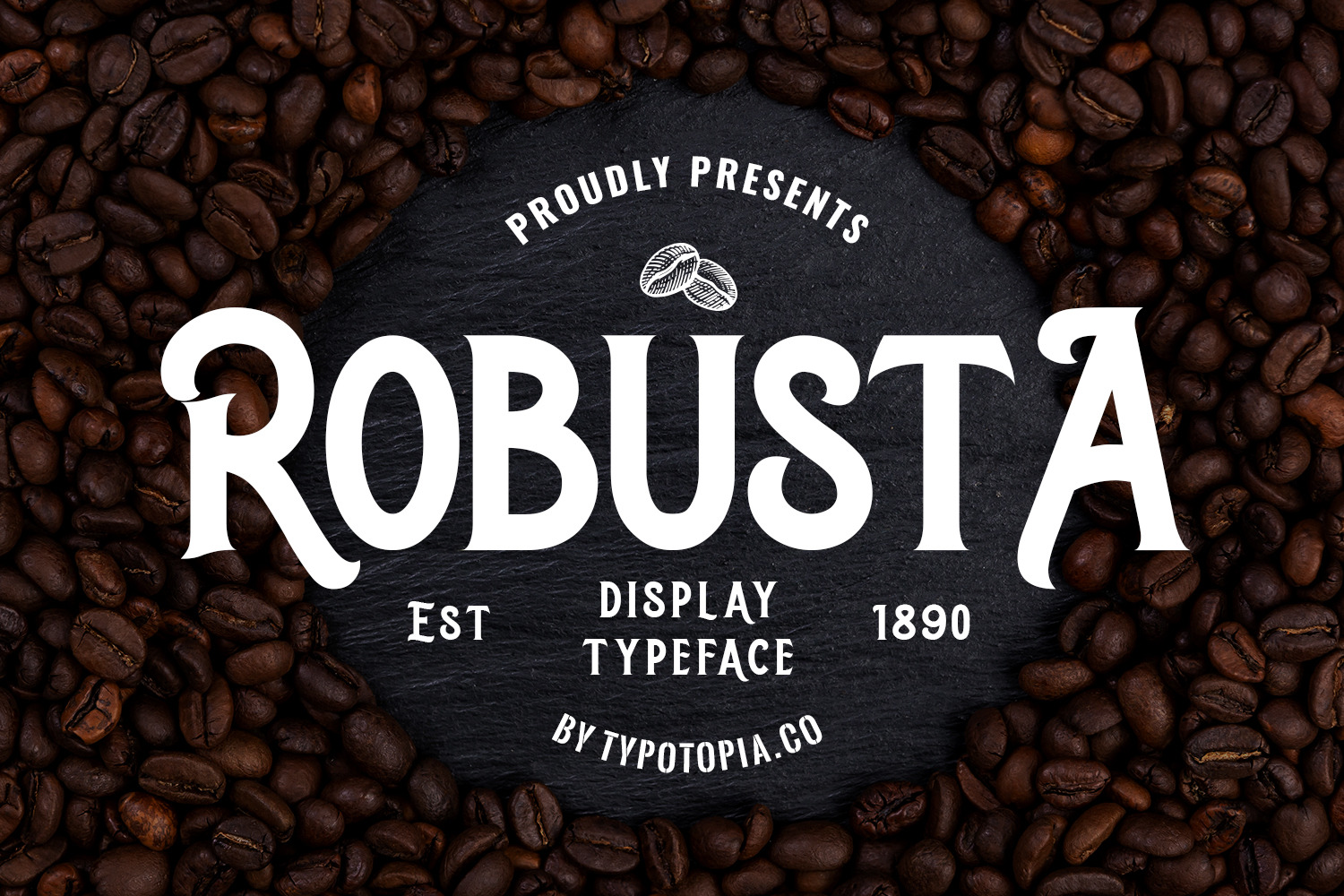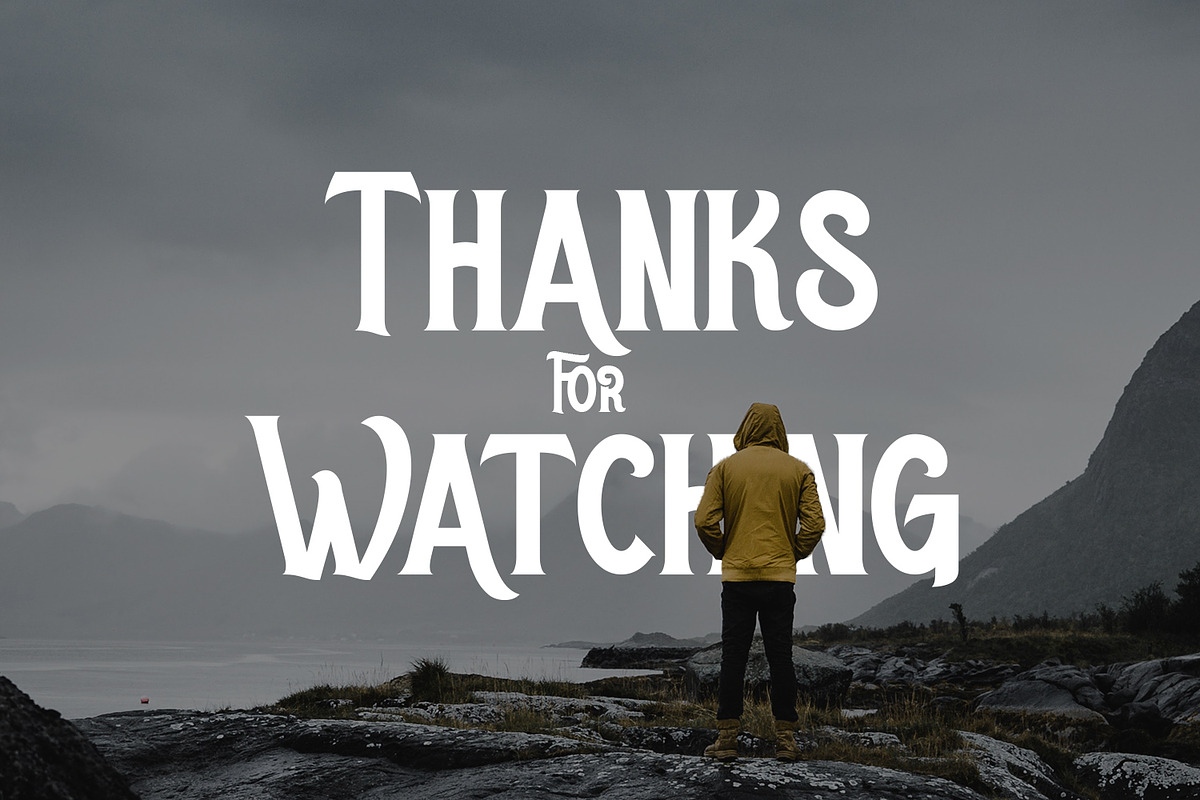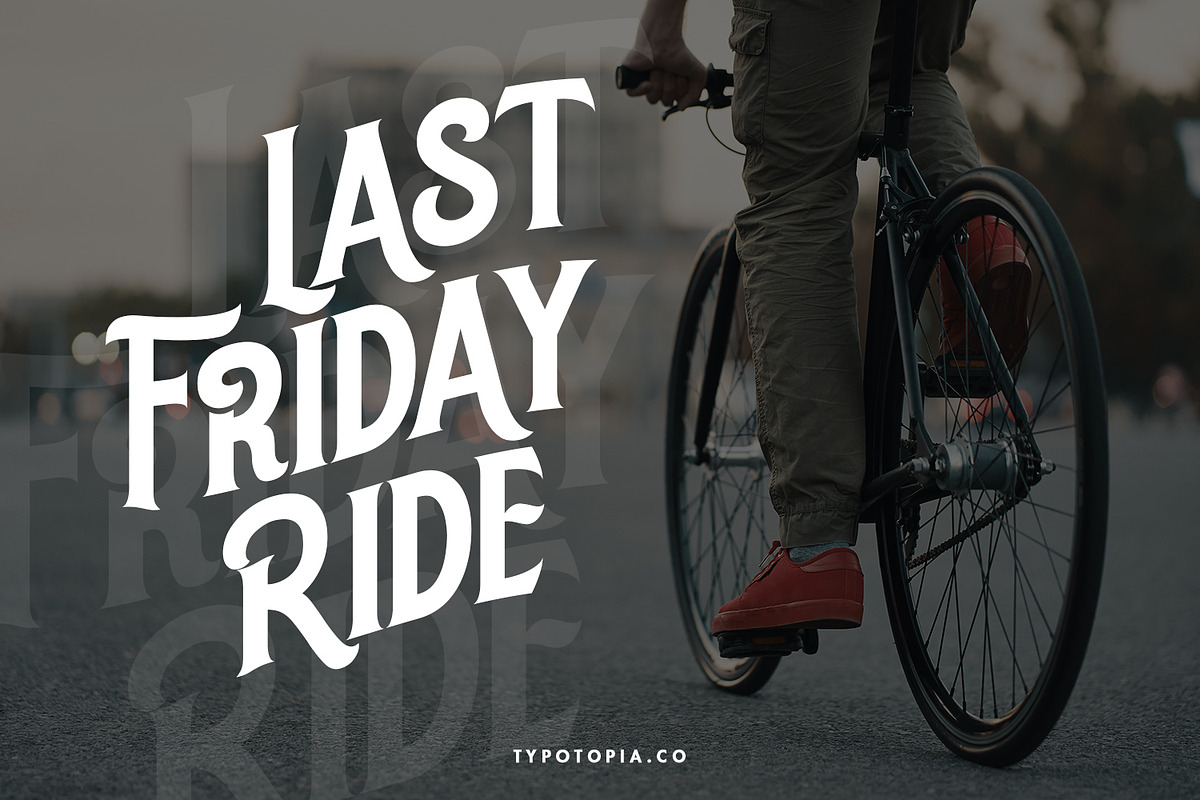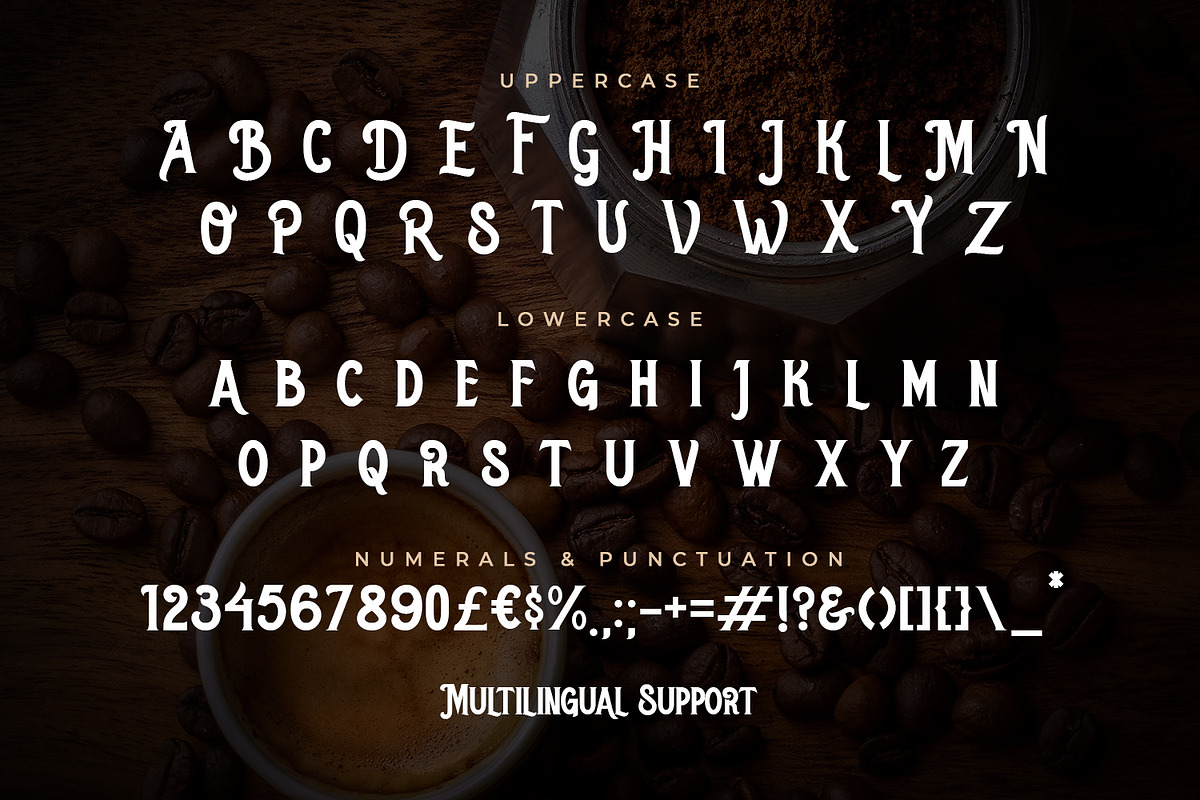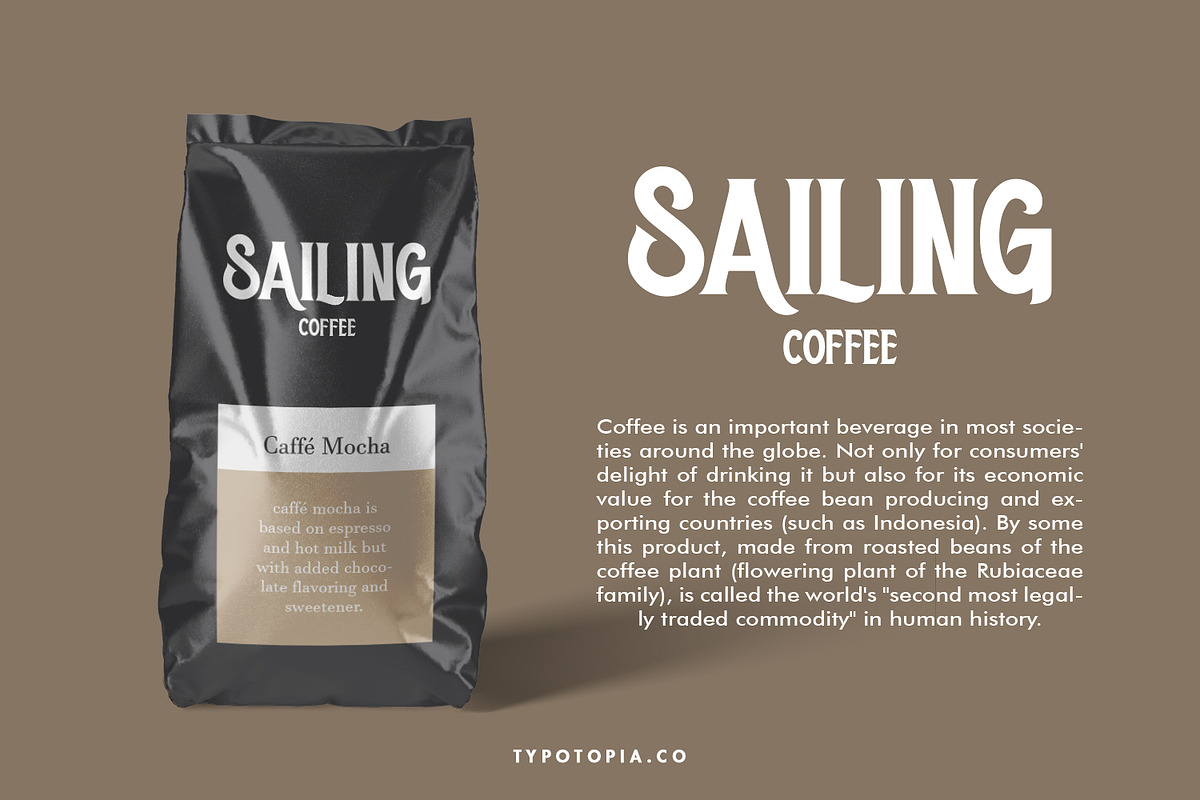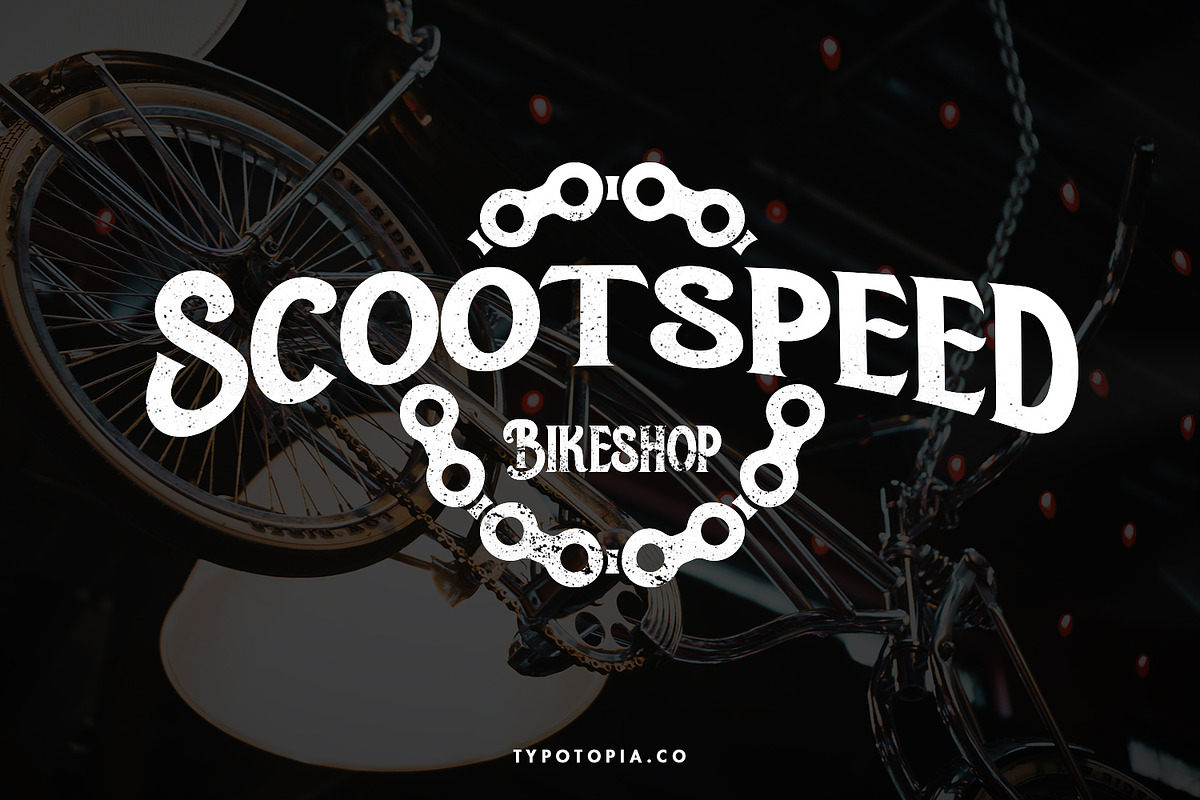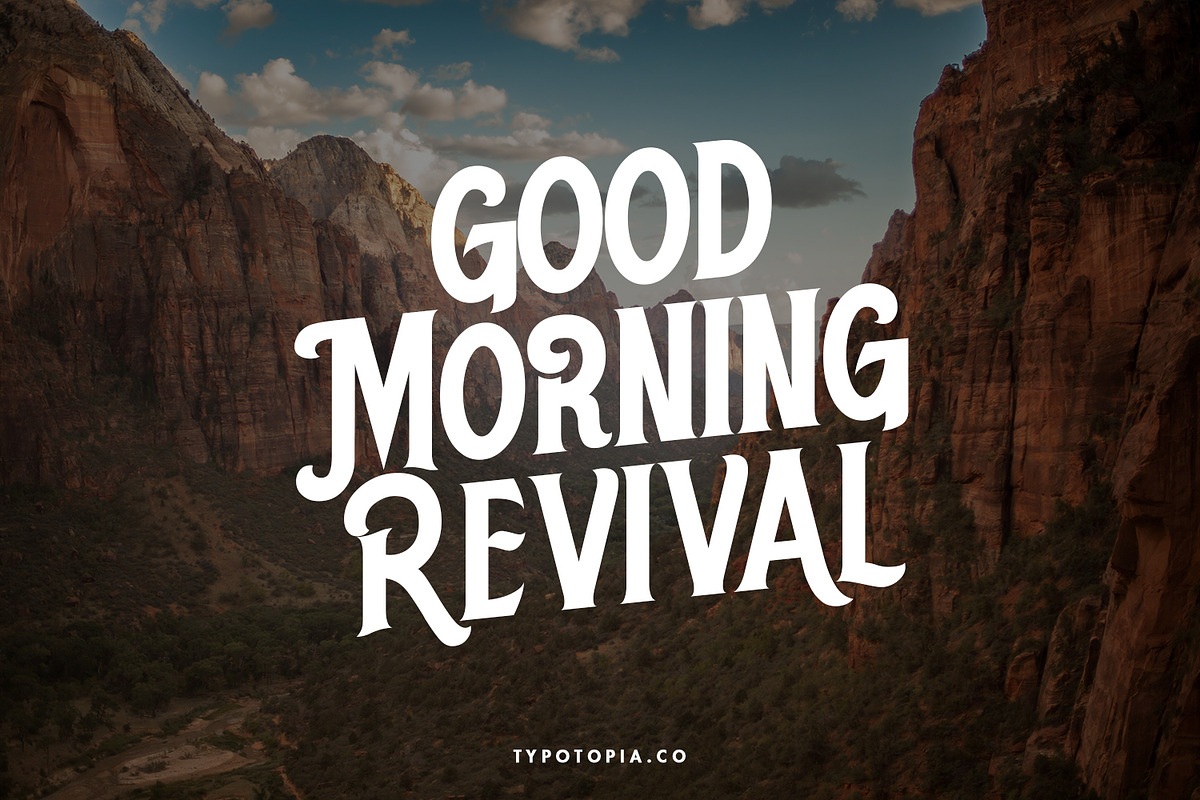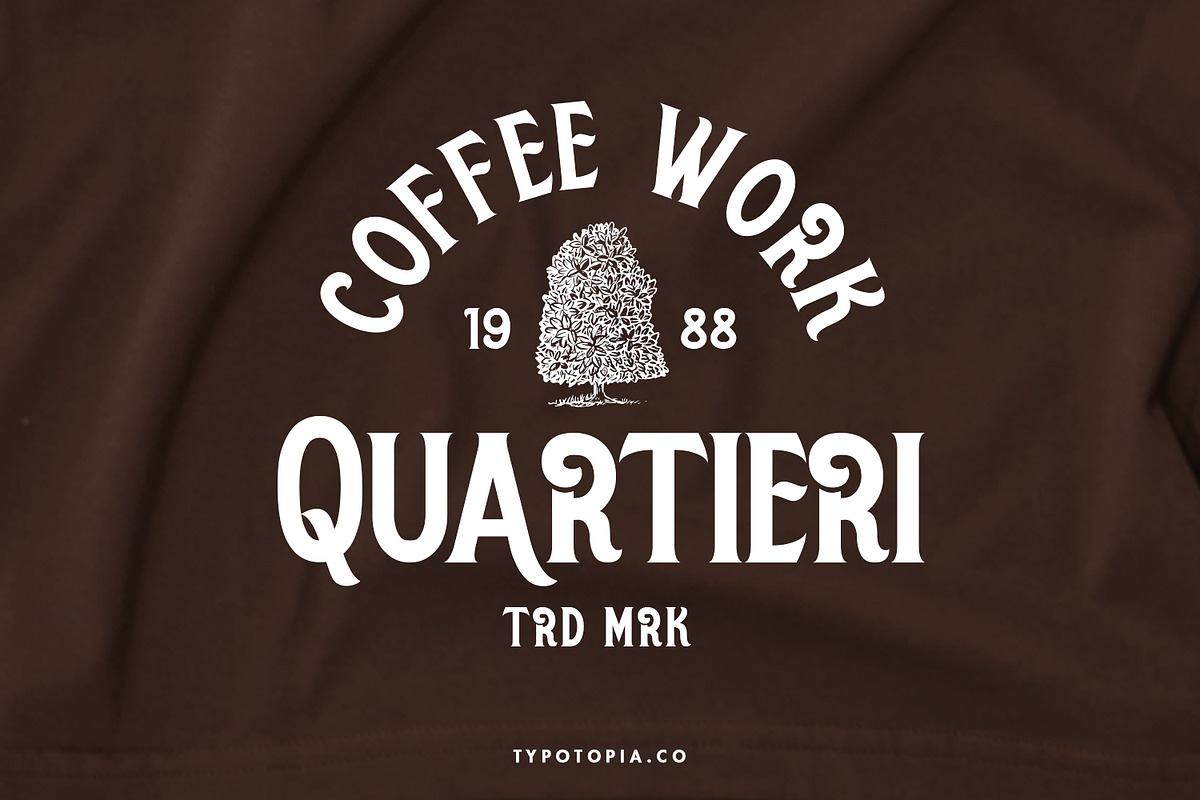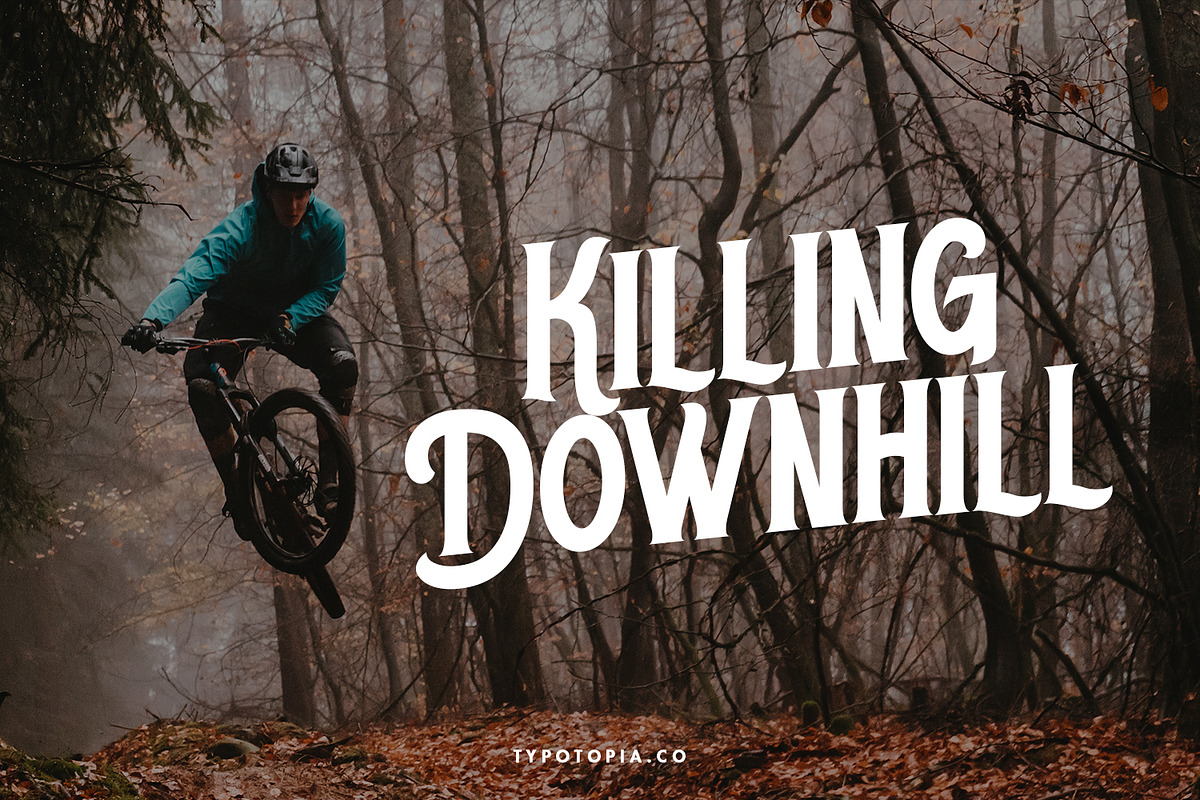
Robusta Display Typeface
Introducing Robusta
A Display Fonts with Semi-Vintage Style. This type of font perfectly made to be applied especially for logos, Poster, stationery, magazines, menus, books, invitations, greeting cards, packaging, labels, apparel, marketing, business cards, etc. otf, ttf,woff